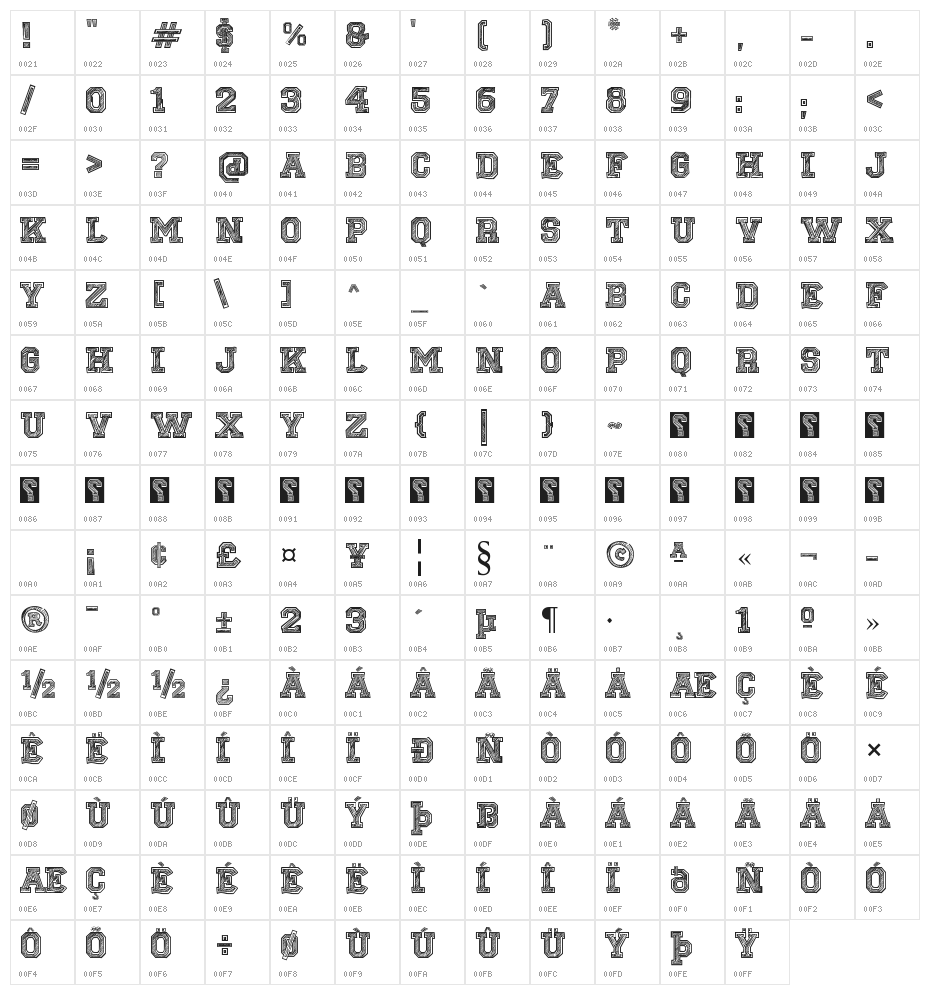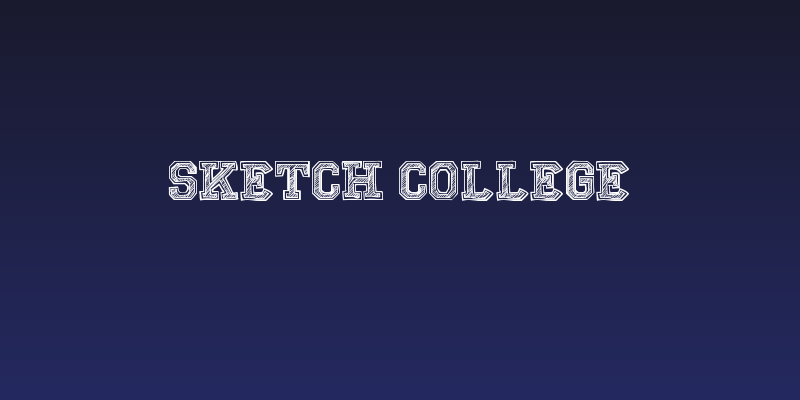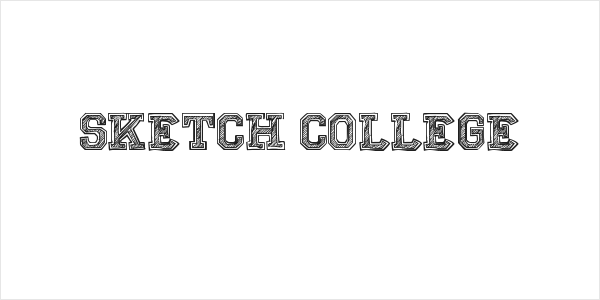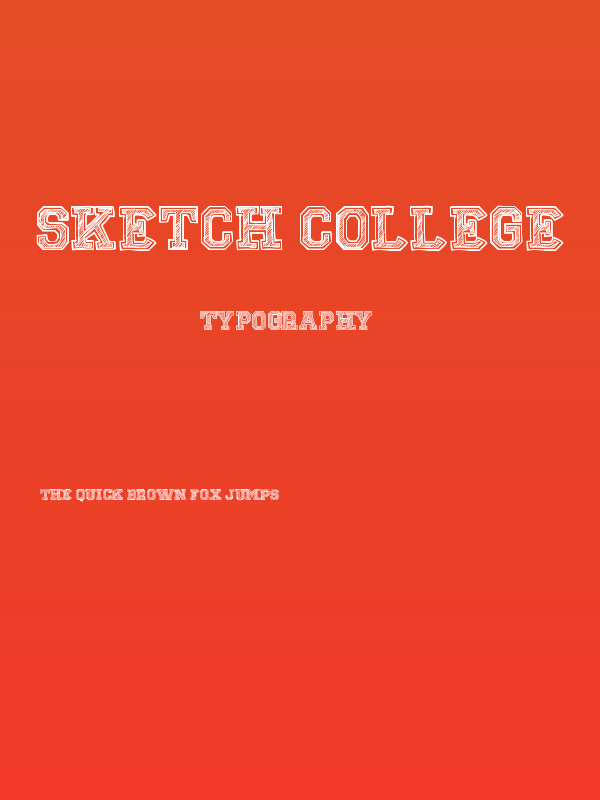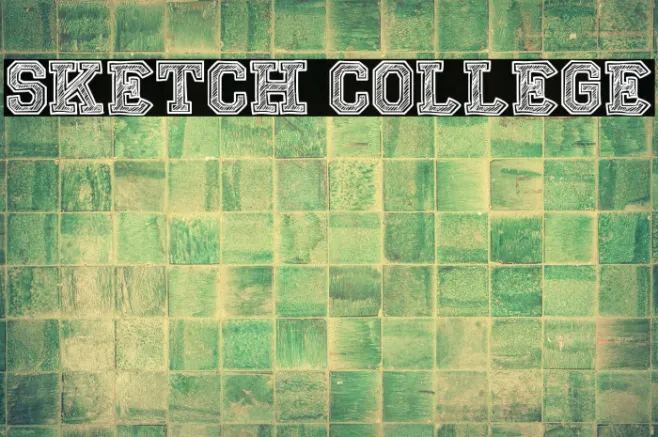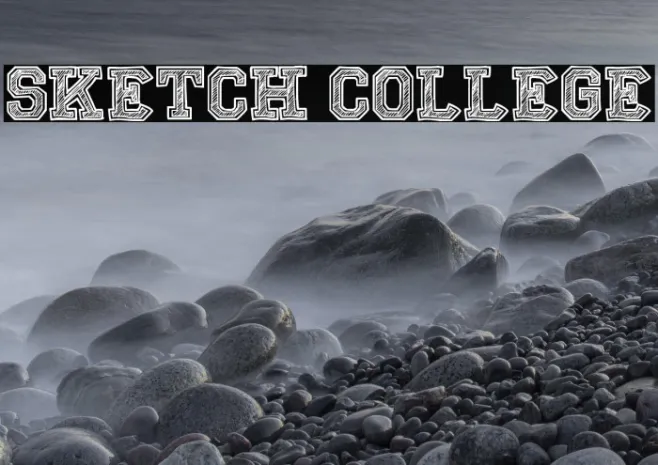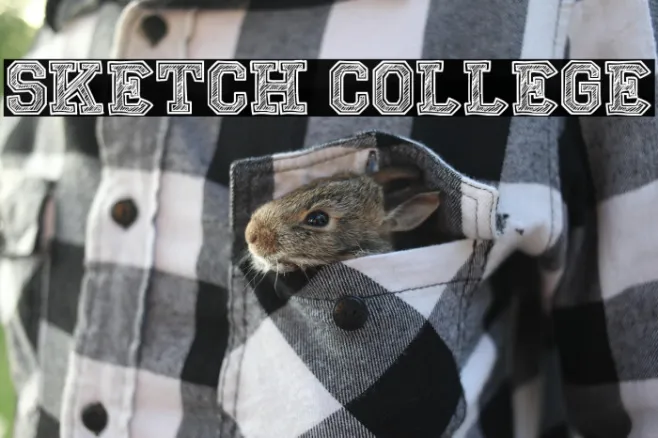
Sketch College Font
Sketch College Description
This font features a bold, sketch-like design that mimics hand-drawn lines, giving it a unique and artistic appearance. The letters are outlined with a thick border and filled with diagonal hatching, creating a textured, three-dimensional effect. The uppercase and lowercase letters maintain a consistent style, with a playful and informal vibe. The numbers and special characters follow the same sketchy aesthetic, making the font versatile for creative projects. Its distinct style is reminiscent of collegiate or varsity themes, perfect for designs that require a bold and eye-catching look.
| Proposed Projects | Ideal for posters, school projects, sports team branding, and creative designs requiring a bold statement. |